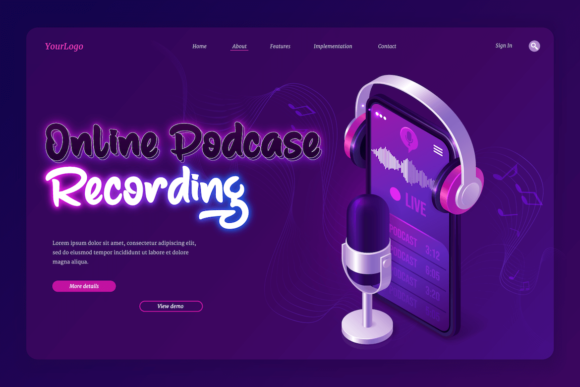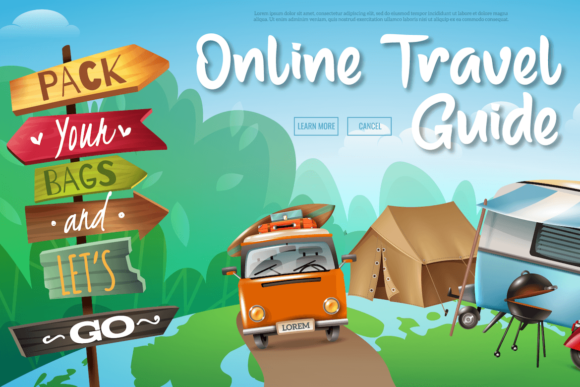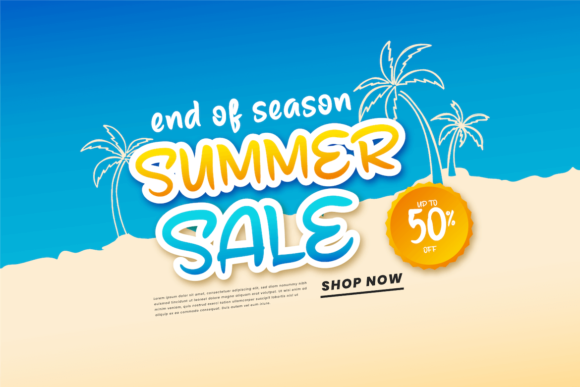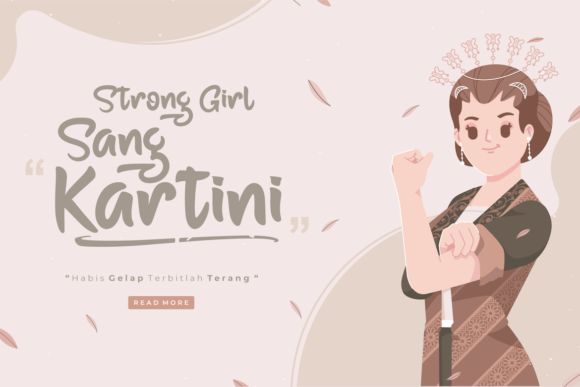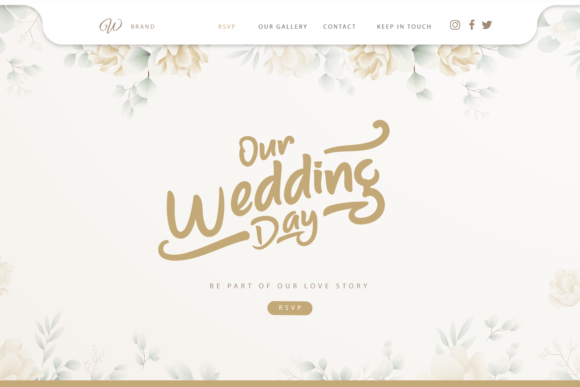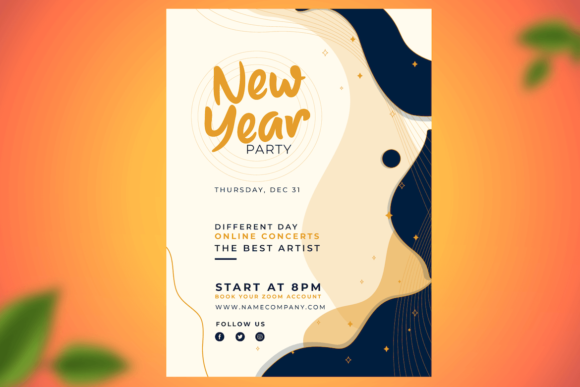
Bachelor Font: Elevate Your Designs with a Cursive and Stylish Paint Brushed Handwritten Font
Are you a designer or crafter looking for a unique and stylish font to elevate your creative projects? Look no further than the Bachelor Font, a cursive and stylish paint brushed handwritten font that is sure to add a touch of elegance and sophistication to your designs.
What is Bachelor Font?
Bachelor Font is a carefully crafted font that mimics the look of hand-painted letters, with a cursive and flowing script that exudes a sense of creativity and playfulness. This original look will appeal to a wide range of crafty ideas, from letterheads and titles, to stationery and more.
Key Features of Bachelor Font
- Cursive and Stylish: Bachelor Font features a beautiful cursive script with a stylish and elegant look that is perfect for adding a touch of sophistication to your designs.
- Paint Brushed: The font has a distinctive paint brushed look that gives it a unique and creative feel.
- Handwritten: Bachelor Font is a handwritten font that has been carefully crafted to mimic the look of hand-painted letters.
- Versatile: This font is perfect for a wide range of creative projects, from letterheads and titles, to stationery and more.
Uses for Bachelor Font
Bachelor Font is a versatile font that can be used for a wide range of creative projects, including:
- Letterheads: Add a touch of elegance and sophistication to your letterheads with Bachelor Font.
- Titles: Use Bachelor Font to create eye-catching titles for your blog posts, articles, and more.
- Stationery: Create beautiful and unique stationery with Bachelor Font, perfect for invitations, greeting cards, and more.
- Branding: Use Bachelor Font to create a unique and memorable brand identity for your business.
Why Choose Bachelor Font?
There are many reasons why Bachelor Font is a great choice for designers and crafters, including:
- Unique Look: Bachelor Font has a unique and distinctive look that will set your designs apart from the crowd.
- Elegant and Sophisticated: This font exudes a sense of elegance and sophistication, making it perfect for high-end designs.
- Easy to Read: Despite its cursive script, Bachelor Font is easy to read and understand, making it perfect for body text and more.
- High-Quality: Bachelor Font is a high-quality font that is carefully crafted to ensure that it looks great in any design.
Tips for Using Bachelor Font
Here are a few tips for using Bachelor Font in your designs:
- Use it Sparingly: Bachelor Font is a bold and eye-catching font, so use it sparingly to avoid overwhelming your design.
- Pair it with Other Fonts: Bachelor Font pairs well with other fonts, so experiment with different combinations to find the perfect look for your design.
- Experiment with Colors: Bachelor Font looks great in a range of colors, so experiment with different colors to find the perfect look for your design.
Bachelor Font is a beautiful and stylish cursive font that is perfect for designers and crafters looking to add a touch of elegance and sophistication to their creative projects. With its unique look, elegant script, and versatility, Bachelor Font is a great choice for a wide range of designs, from letterheads and titles, to stationery and more.